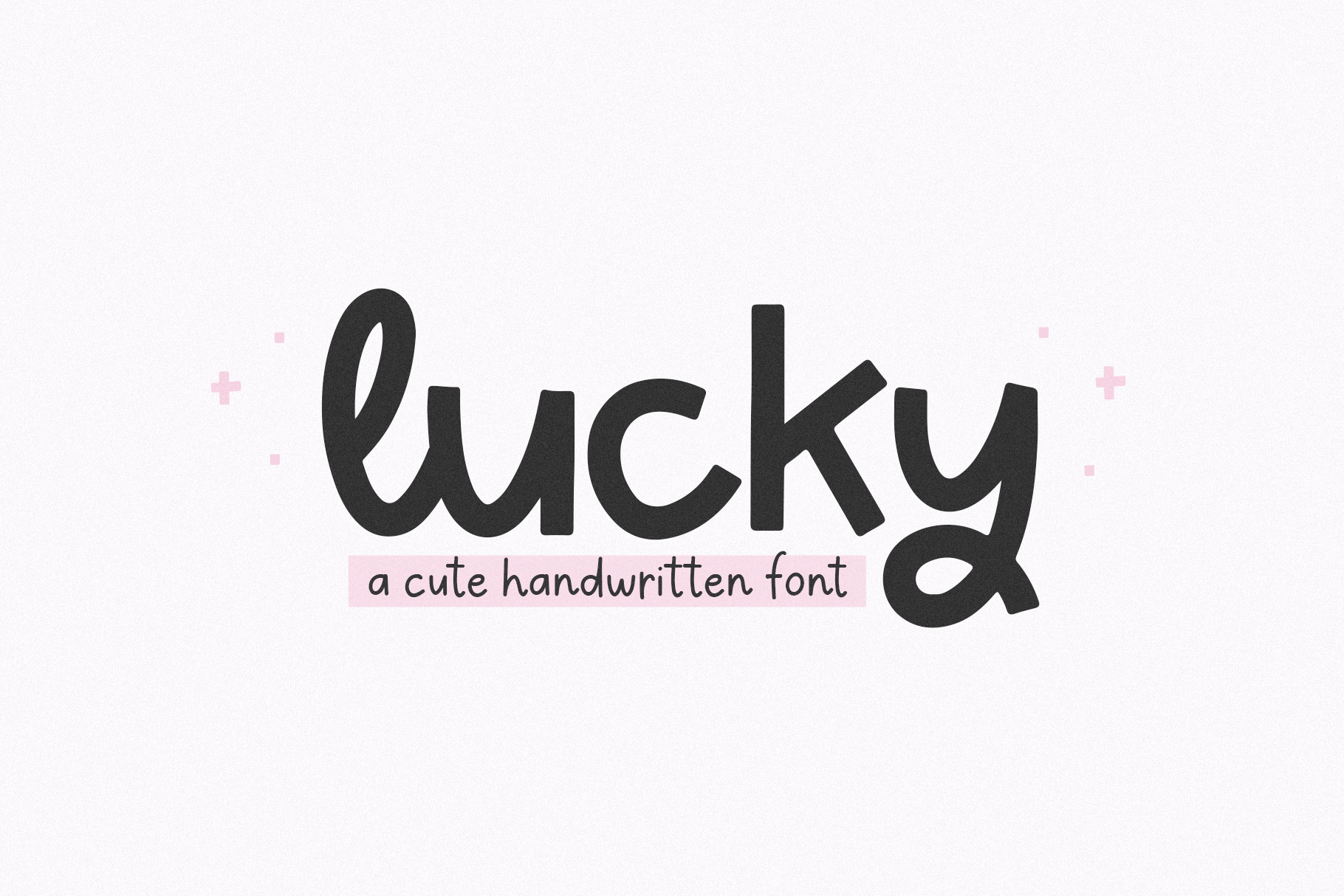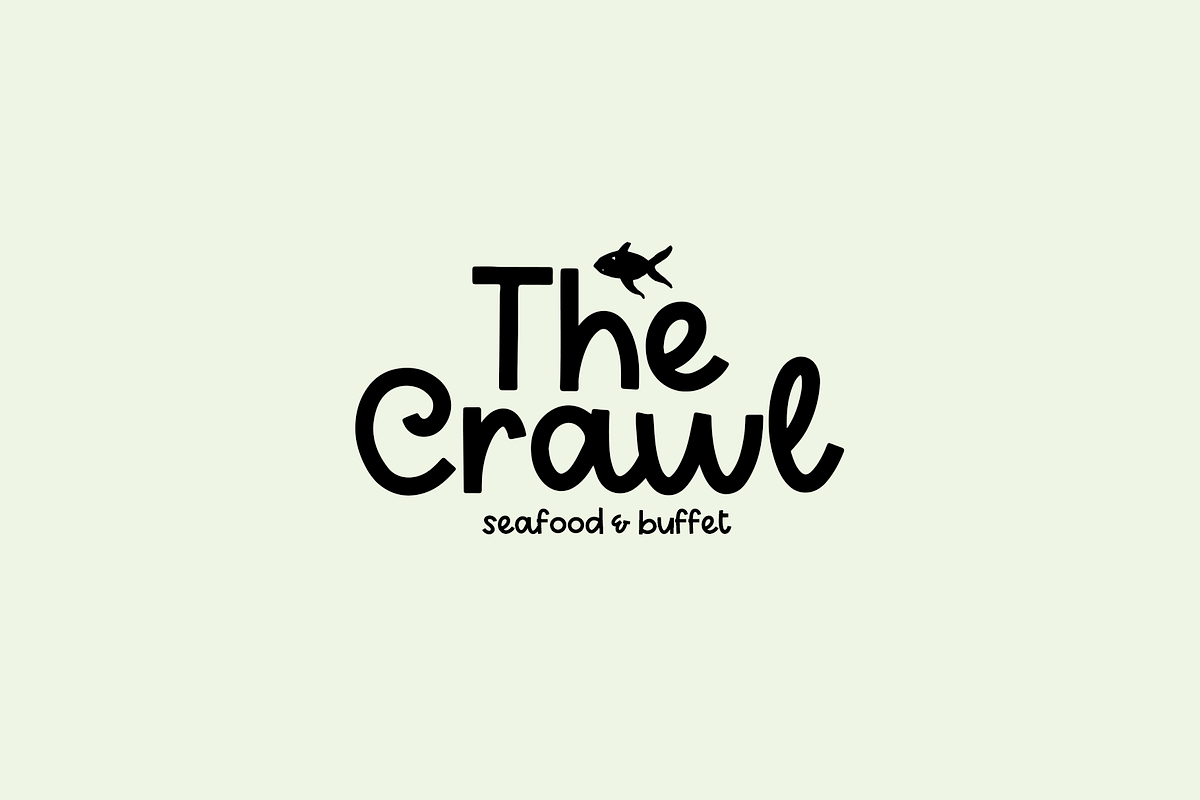
Lucky | Handwritten Script Font
Lucky is a handwritten display font.
This monoline font is perfect for all of your modern projects, branding, logos, svg designs, shirts, social media, web and more!
Most accent characters included.